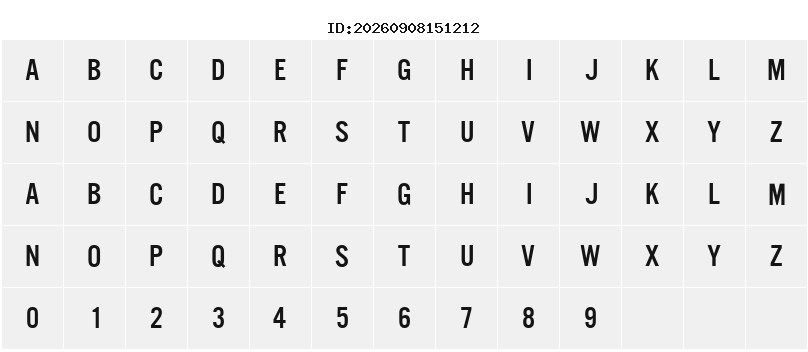
U.S. 101.ttf is a modern, elegant sans-serif font designed for ultimate readability and visual harmony. Perfect for branding, headlines, web design, and print materials.